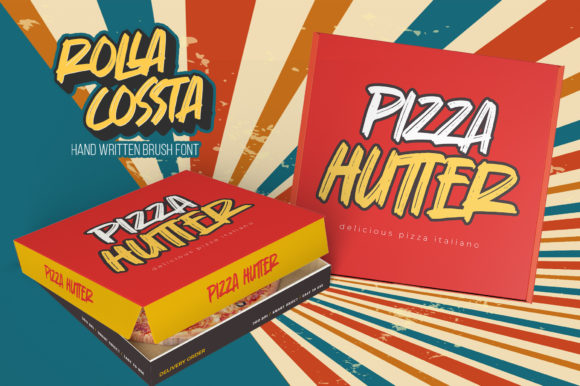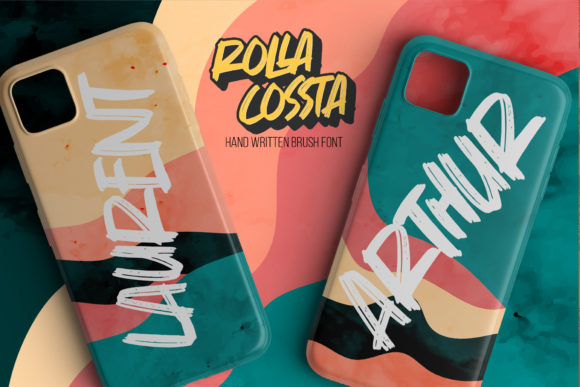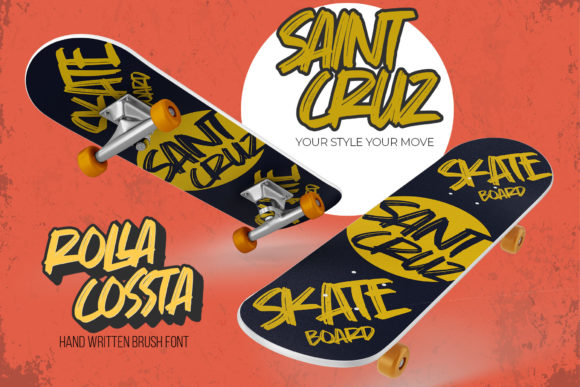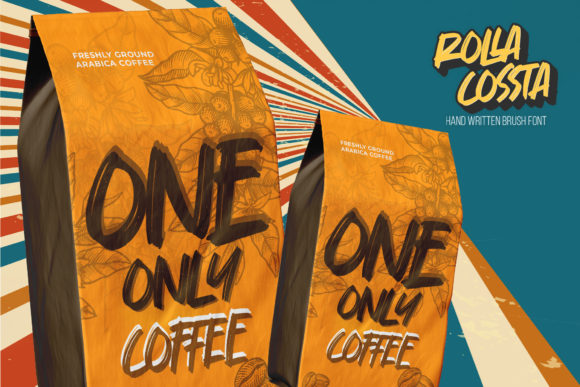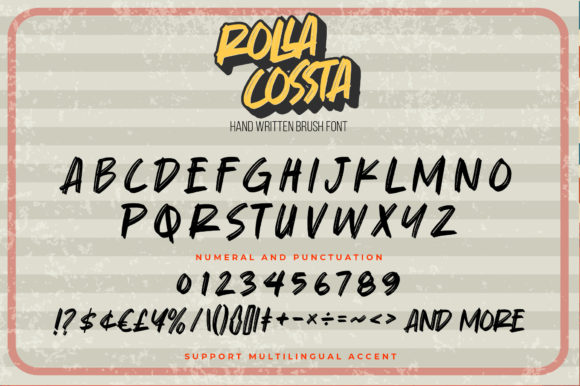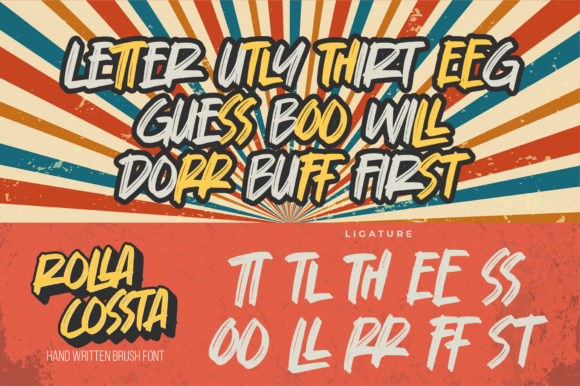
Introduction to Rolla Cossta Font
Rolla Cossta is a handwritten brush font with a graffiti style and a fun theme.
This font is suitable for graffiti, posters, flyers, childrenโs books, cartoons, or comics .
Key Features of Rolla Cossta Font